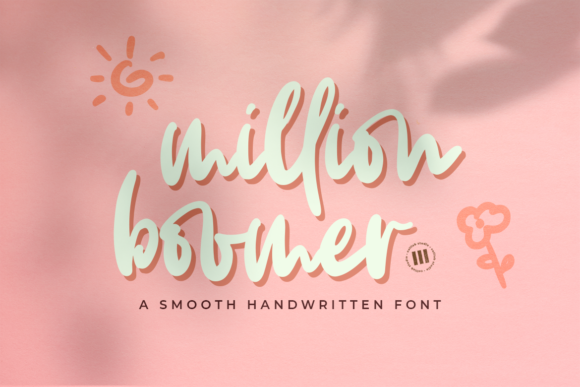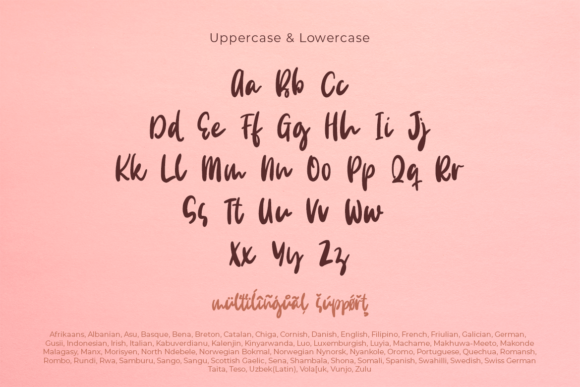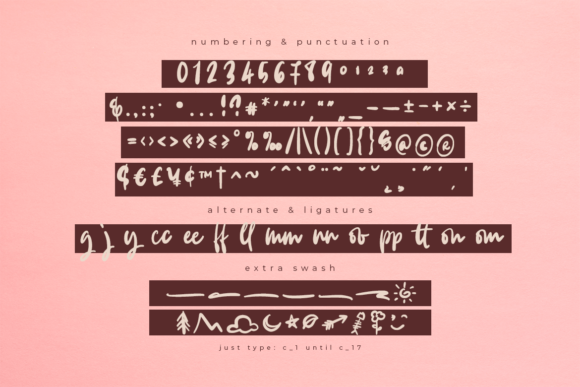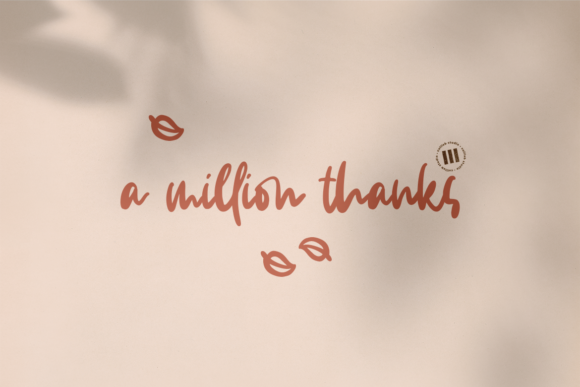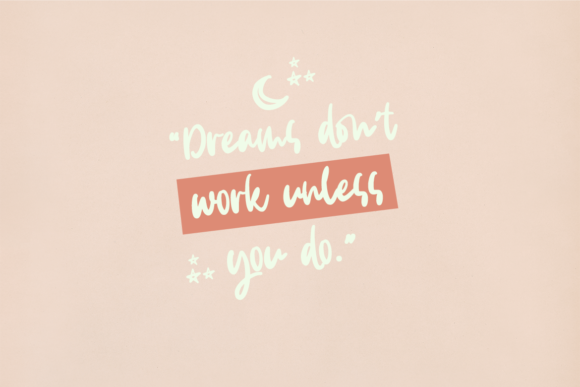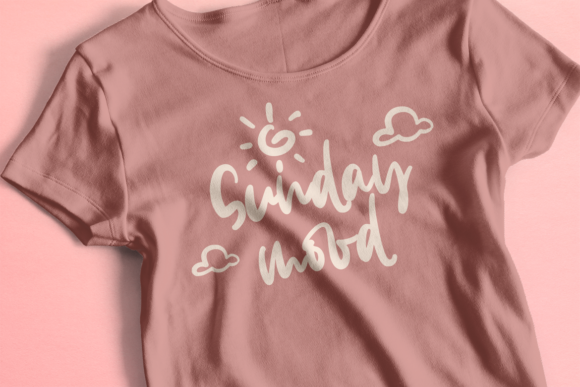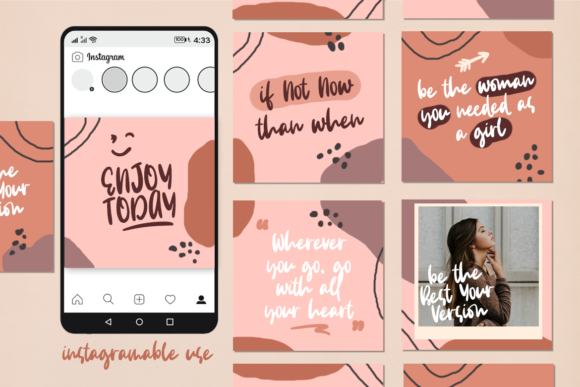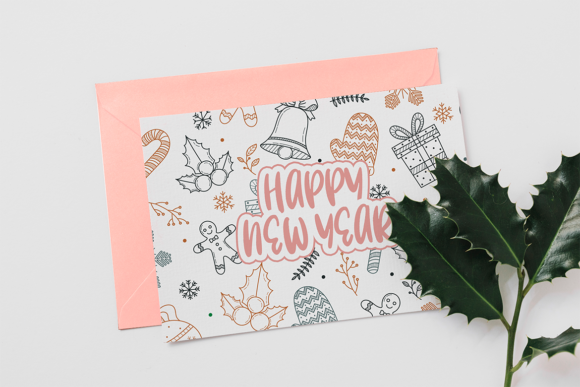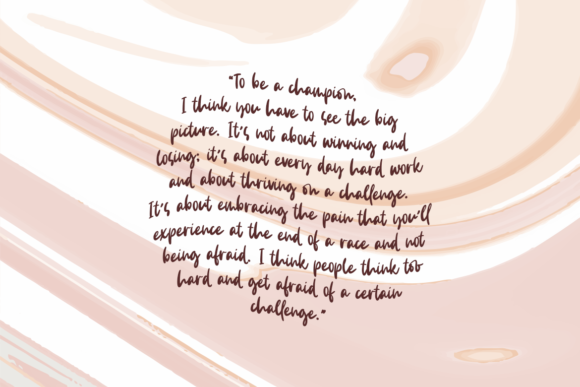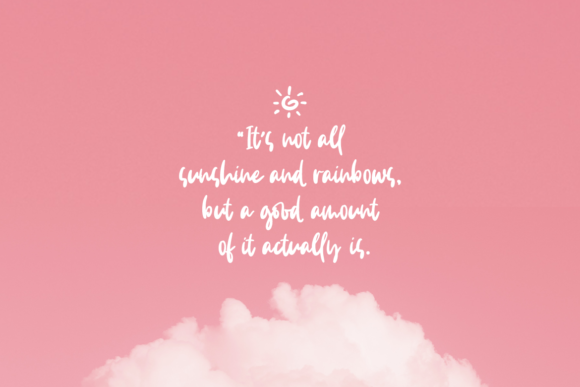
Million Boomer Font
About Million Boomer Font
Million Boomer is a delightful and versatile handwritten font that adds a touch of charm and personality to your designs. With its unique and playful style, it is perfect for a wide range of crafty ideas, from letterheads and titles to stationery and more.
The handcrafted letterforms of Million Boomer exude a sense of warmth and authenticity. Each stroke is carefully crafted, showcasing the imperfections and organic qualities of handwritten script fonts. This adds a personal touch to your designs and creates a connection with your audience.
The versatility of Million Boomer allows it to adapt to various design themes and concepts. Whether you’re working on a formal business letterhead or a whimsical greeting card, this font can be easily adjusted to suit the tone and style of your project.
With its PUA (Private Use Area) encoding, Million Boomer provides easy access to a wide range of additional glyphs and swashes. This gives you the freedom to customize and embellish your designs with unique and decorative elements, adding extra flair and creativity to your work.
The clean and legible style of Million Boomer ensures that your message is easily conveyed and understood. Its balanced proportions and smooth flow create a harmonious and pleasant reading experience, making it suitable for various types of content, including headings, titles, and body text.
Million Boomer’s friendly and approachable appearance makes it a great choice for adding a personal touch to your designs. Whether you’re creating handmade cards, scrapbooking projects, or personalized stationery, this font will enhance the crafty and DIY feel of your creations.
In summary, Million Boomer is a lovely handwritten font that combines charm, versatility, and accessibility. Its PUA encoding allows for easy access to additional glyphs and swashes, while its clean and legible style makes it suitable for a wide range of crafty projects. Embrace the versatility of Million Boomer and let your creativity shine in your letterheads, titles, stationery, and beyond.